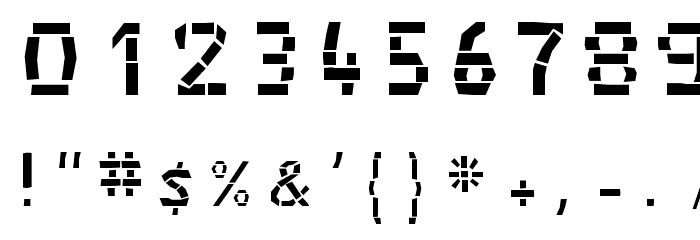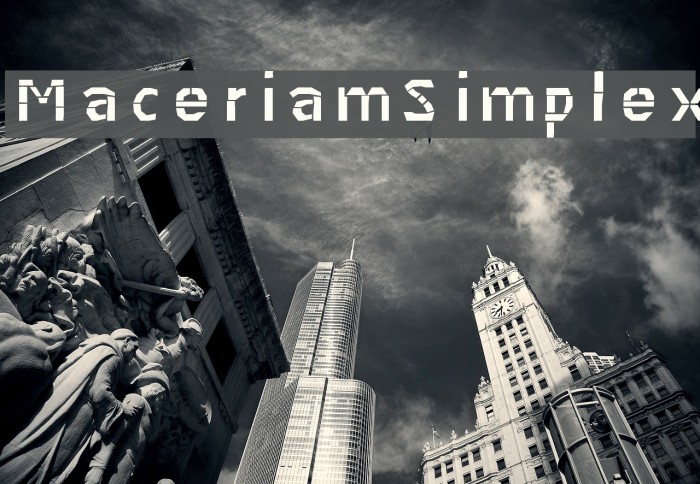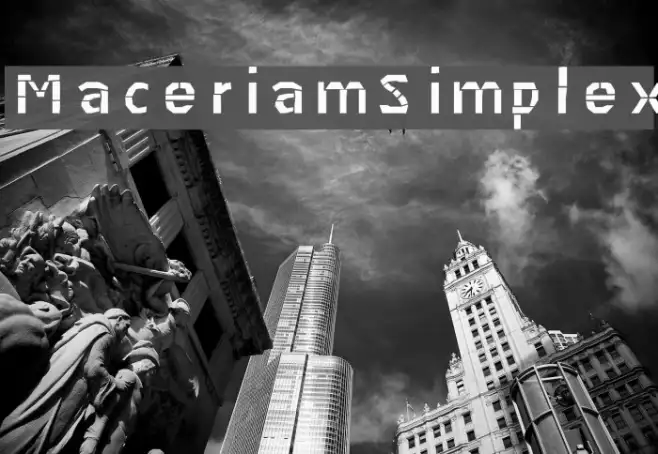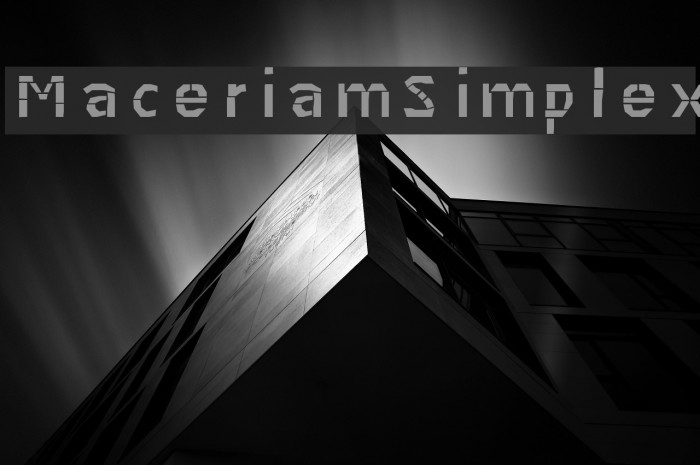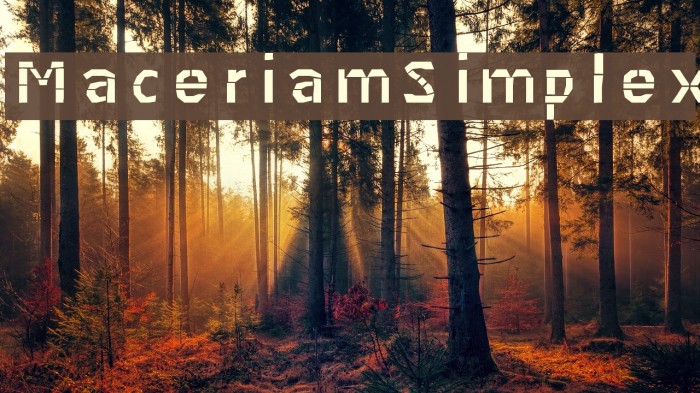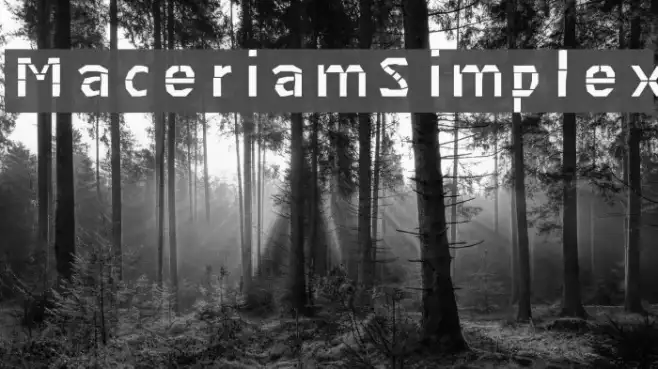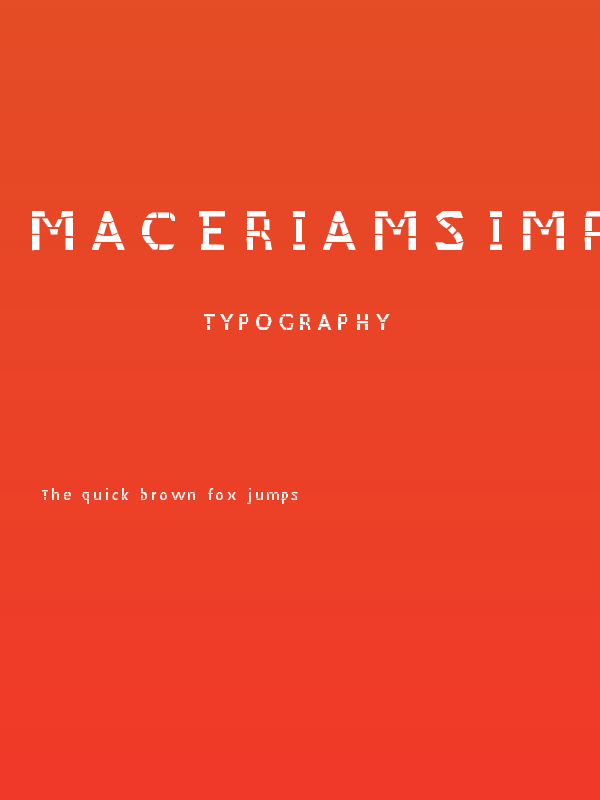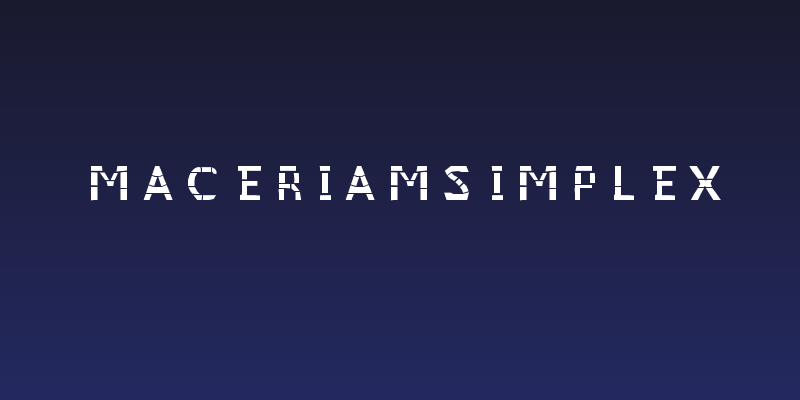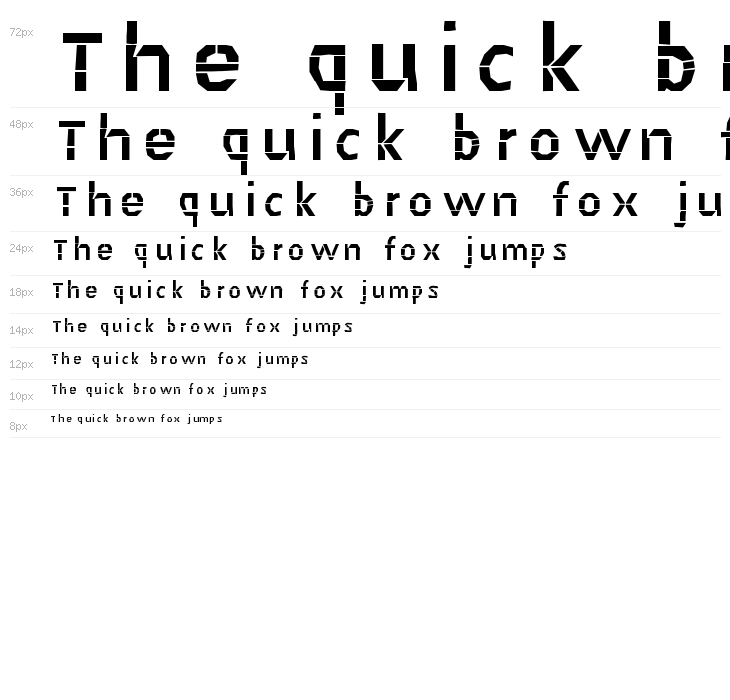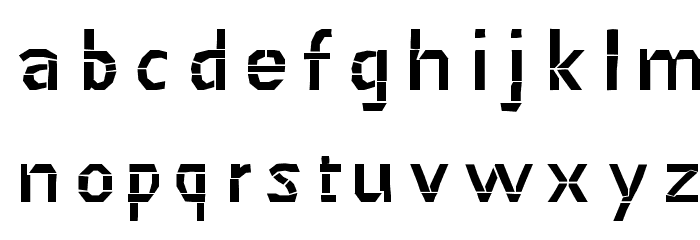
MaceriamSimplex Font
MaceriamSimplex Description
This font features a bold and geometric design with a stencil-like appearance. The characters are constructed with distinct breaks and cuts, giving it a modern and industrial feel. The uppercase and lowercase letters maintain a consistent style, with sharp angles and clean lines. The numerals and special characters follow the same design principles, ensuring uniformity across the typeface. This font's unique style makes it stand out, ideal for projects requiring a strong visual impact.
| Overall Style | Modern, Industrial |
| Proposed Projects | Ideal for branding, posters, signage, and any project needing a modern, industrial aesthetic. |